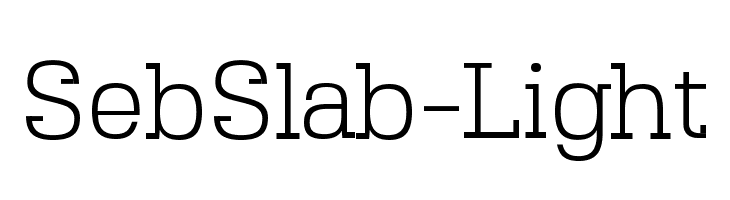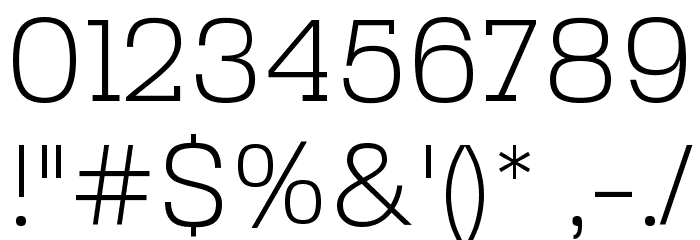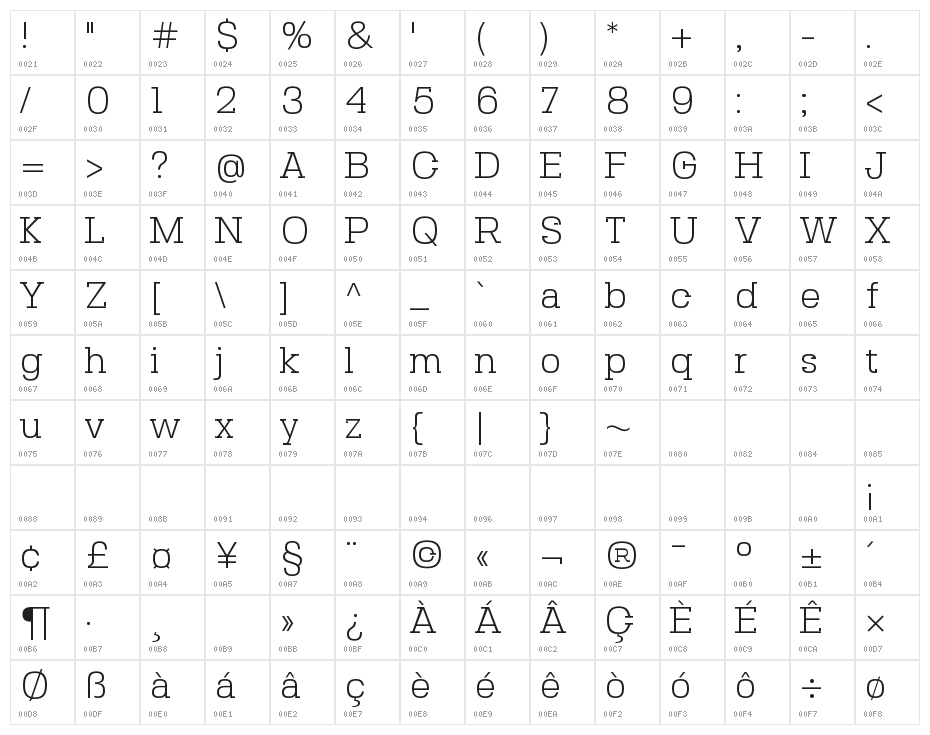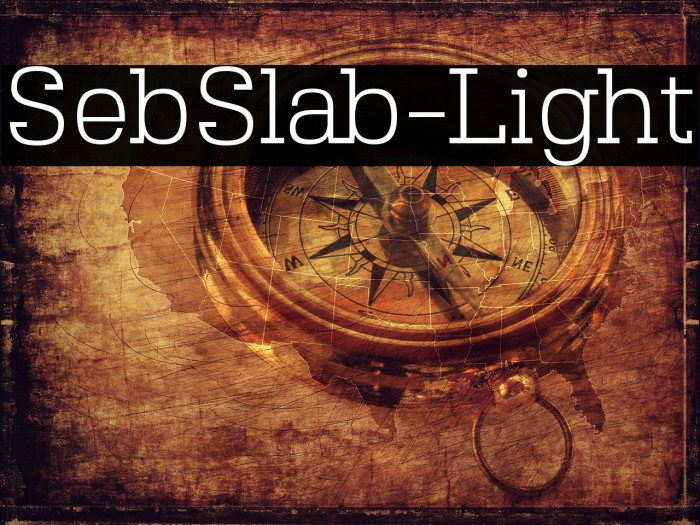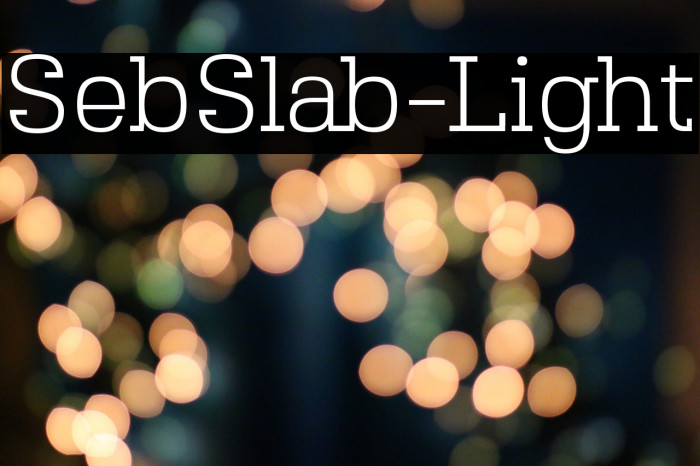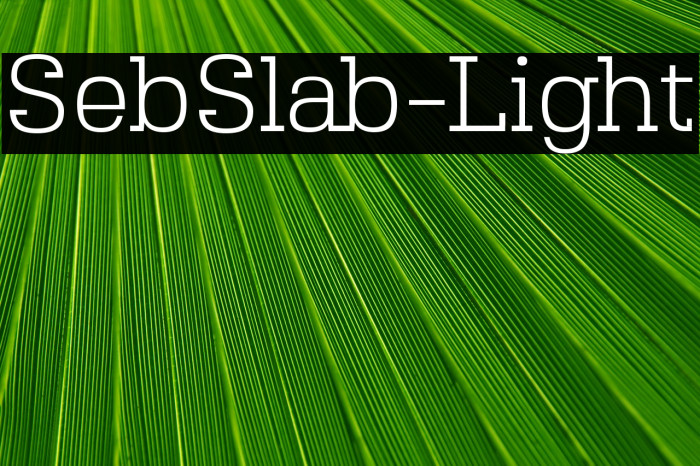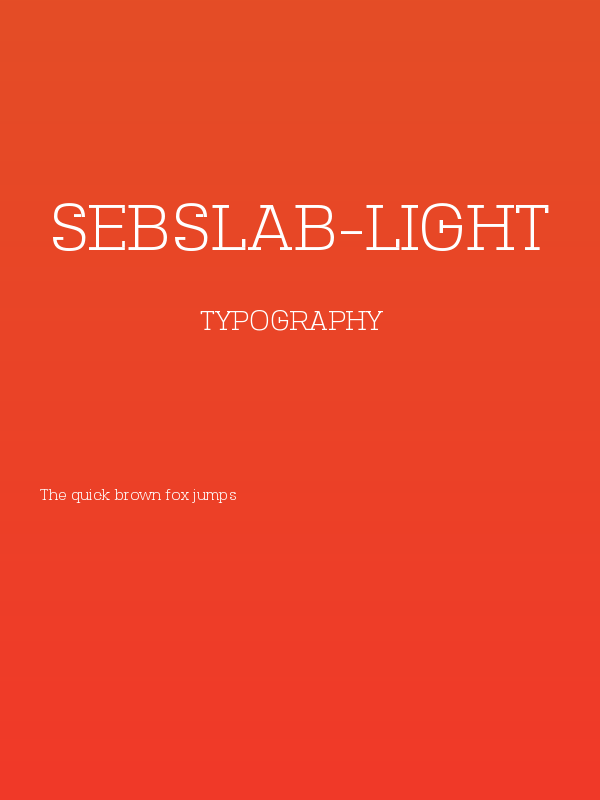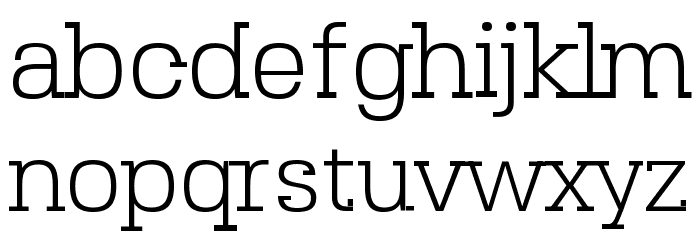
SebSlab-Light Font
SebSlab-Light Description
This font exhibits a clean and structured slab serif style, characterized by its prominent, block-like serifs that provide a strong and stable appearance. The letterforms are well-defined with a consistent stroke width, lending a harmonious and balanced look. The uppercase letters are bold and commanding, while the lowercase letters maintain a uniformity that complements the overall design. Numbers are clear and legible, making them suitable for various applications. Special characters are distinct and integrate seamlessly with the rest of the typeface. The font's geometric precision and clarity make it ideal for both digital and print media.